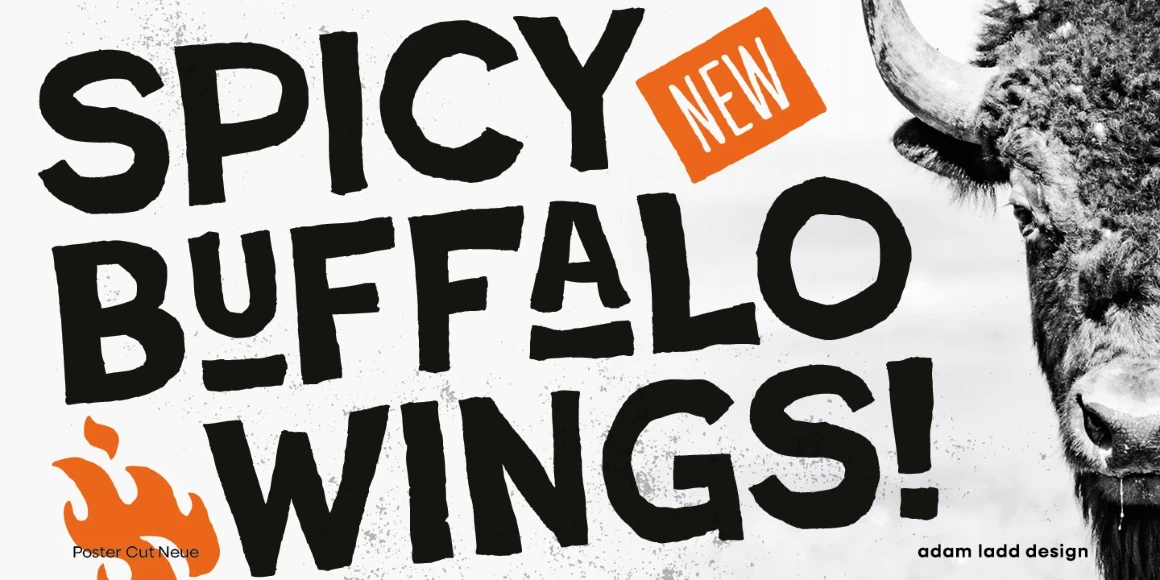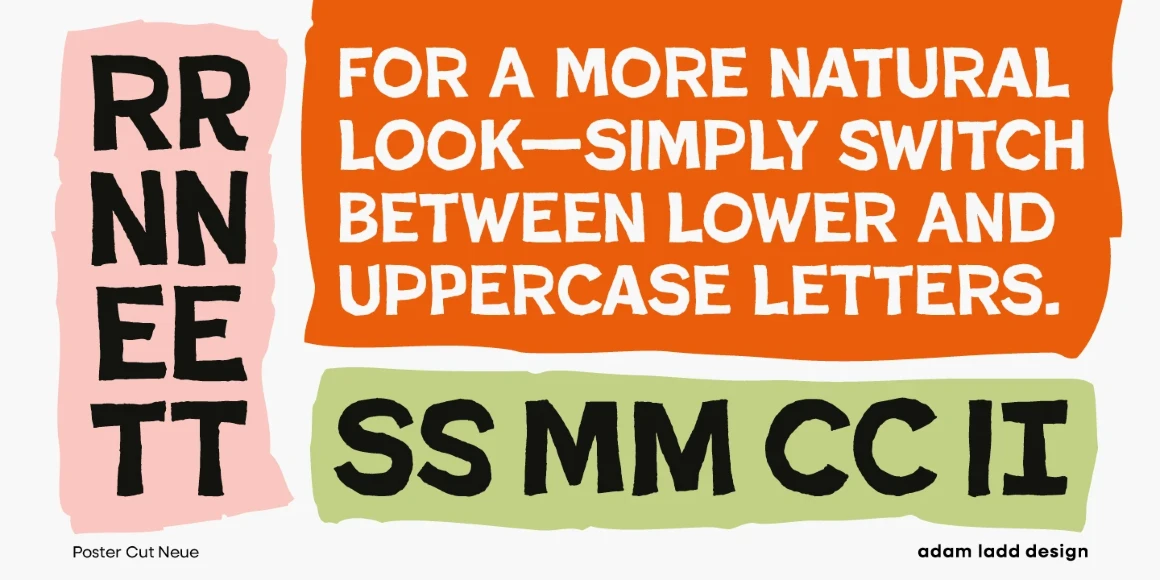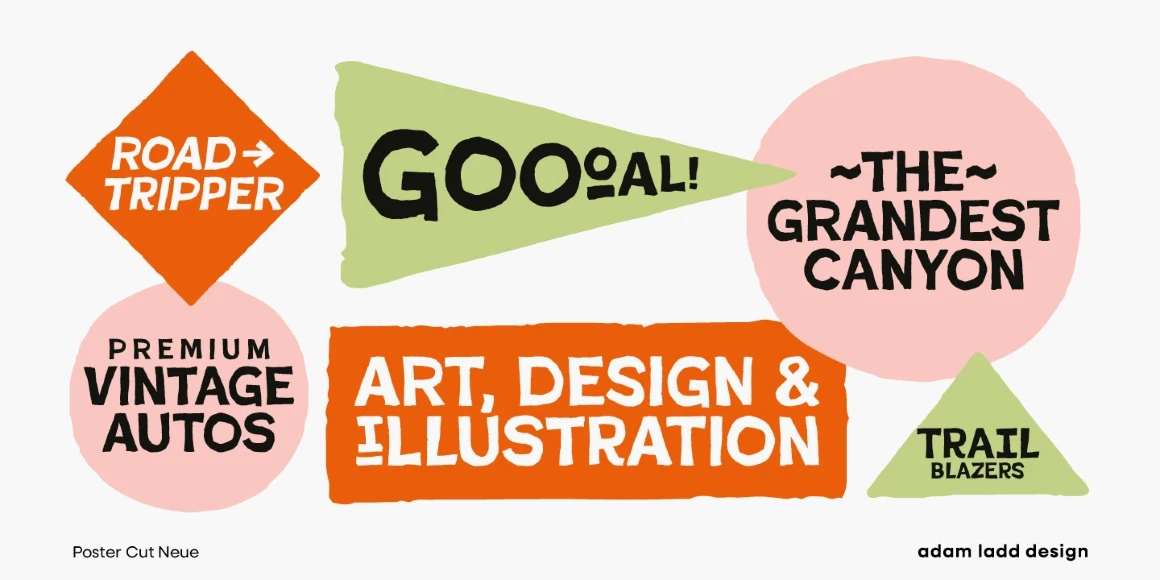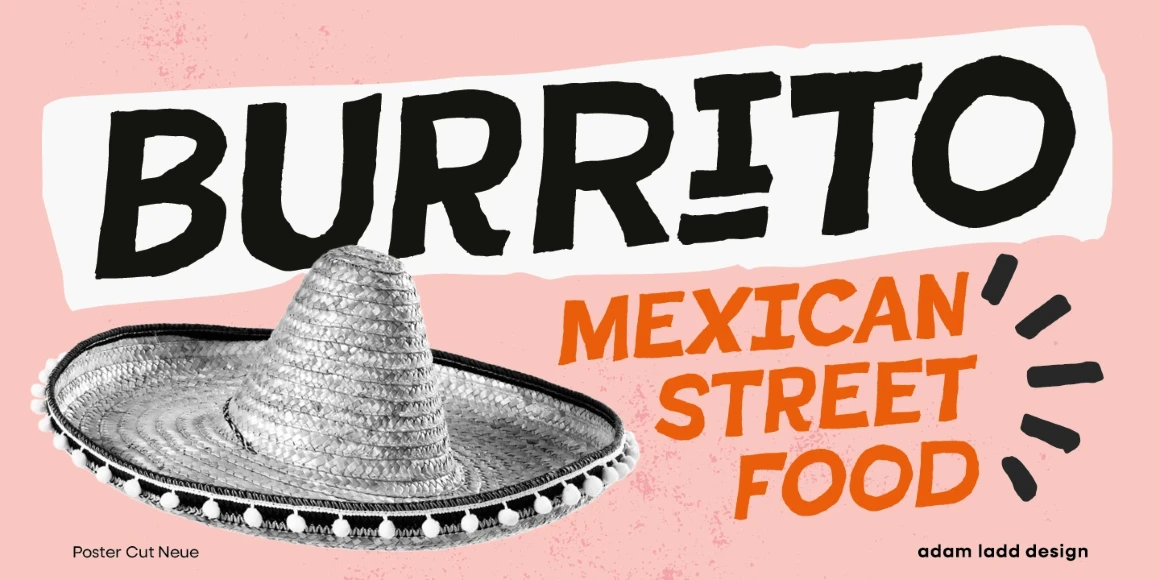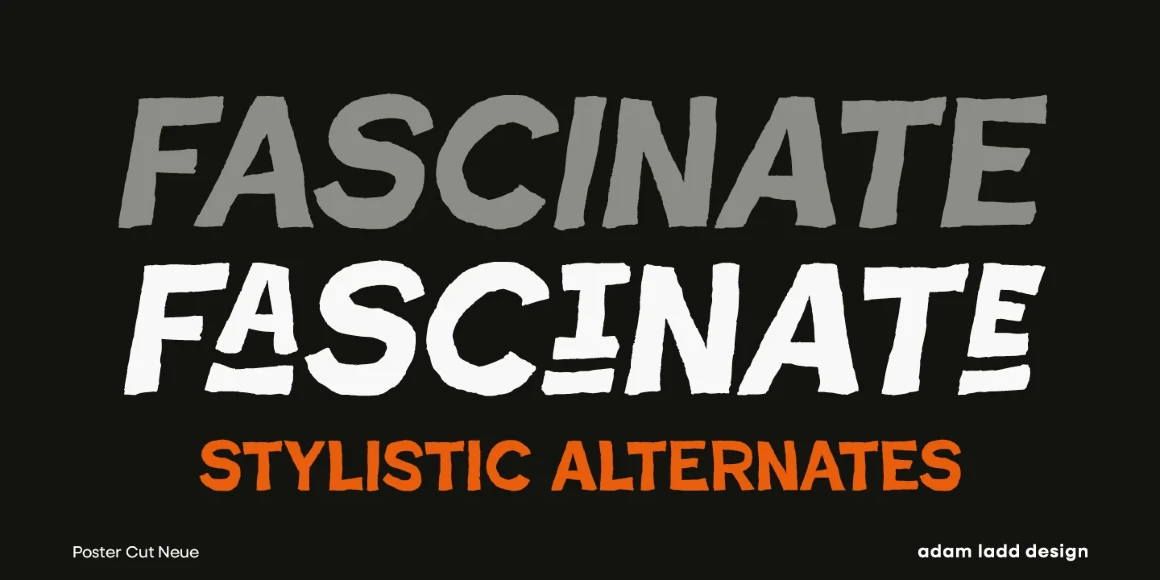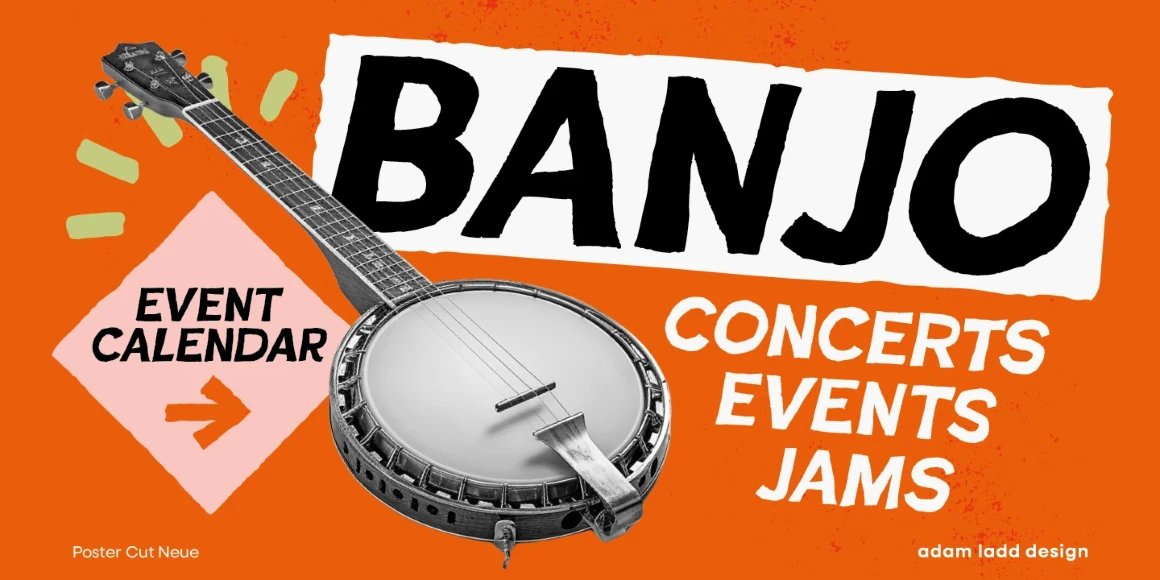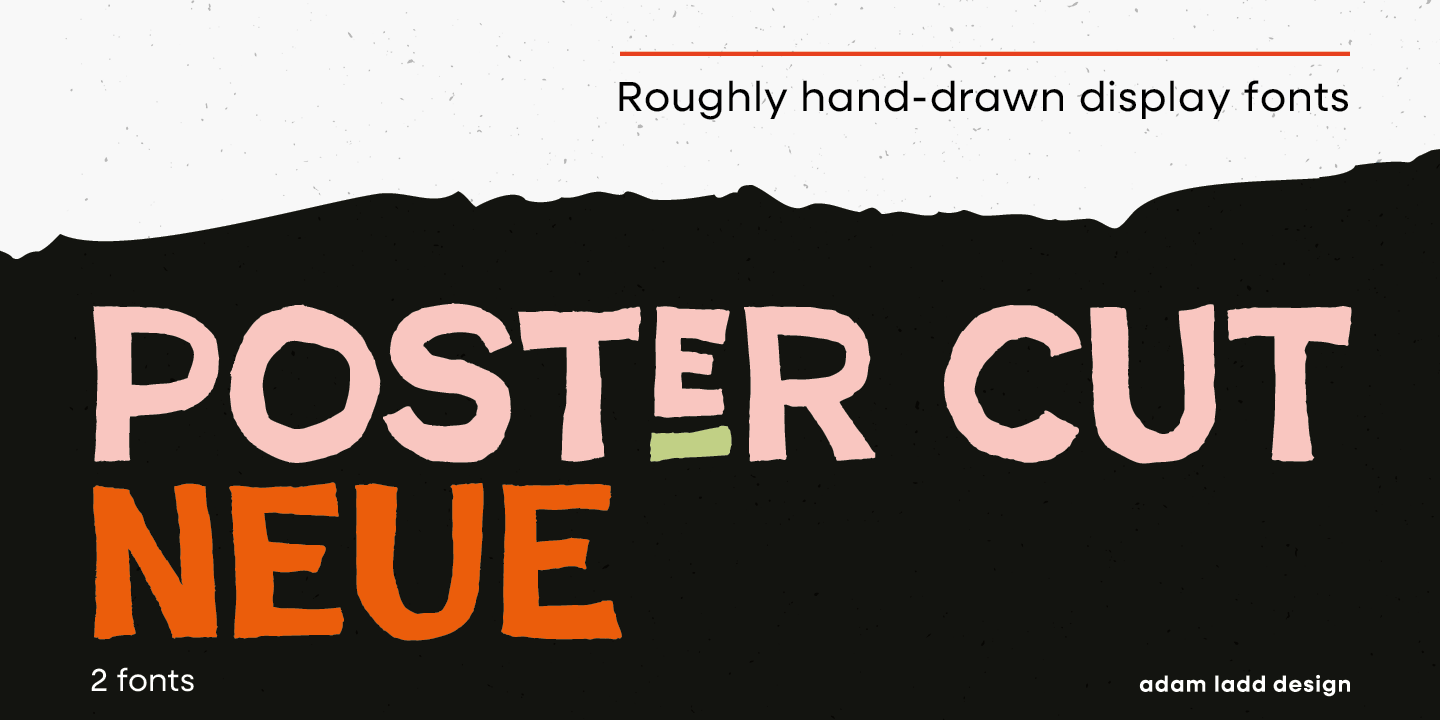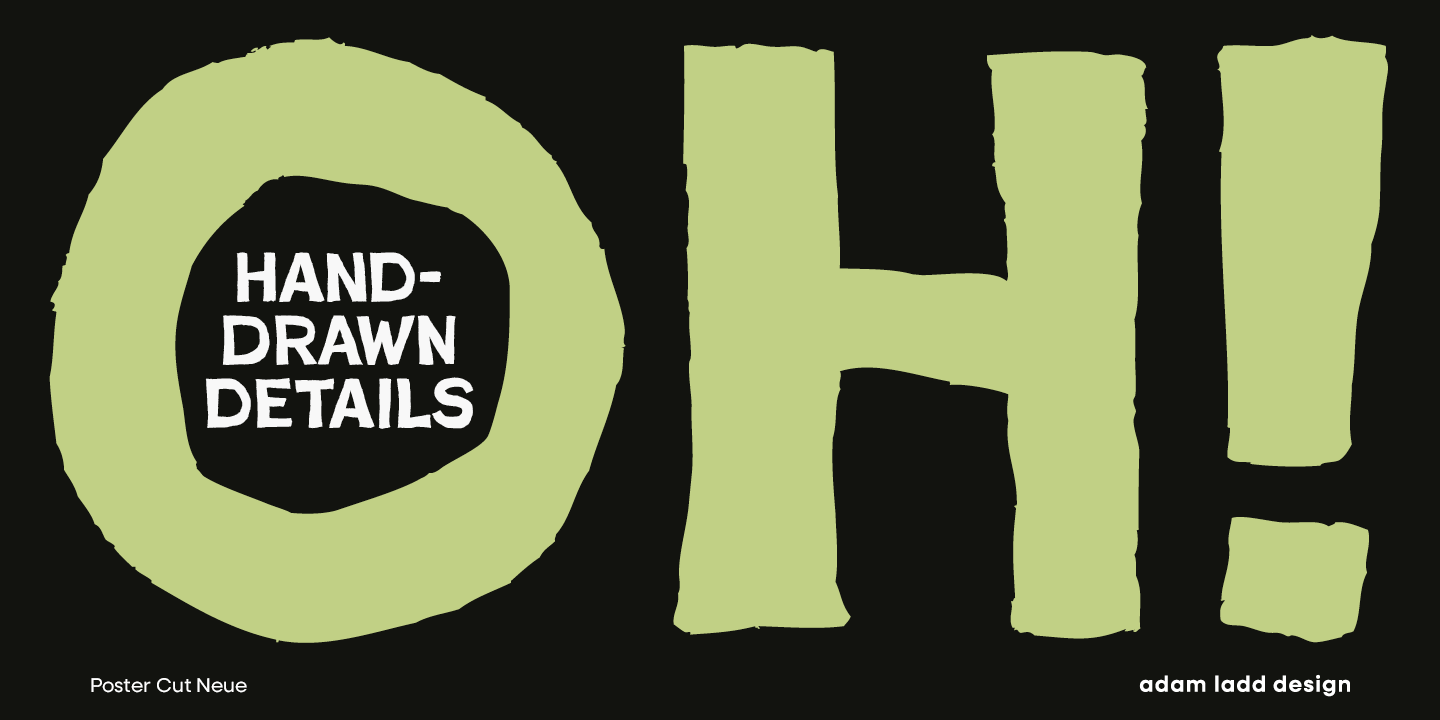
Poster Cut Neue
By Adam Ladd
Poster Cut Neue is a purposefully rough, hand-drawn display family. Loosely inspired by the historic grotesque sans, the all-cap design offers an informal, almost hand-cut look and feel. The uppercase and lowercase are different enough to give the text a hand-lettered sense of movement and energy. Poster Cut Neue, regular and italic, is ideal for brand, editorial, publication, poster, and packaging design applications when you want the work to feel organically natural or tenaciously grassroots.